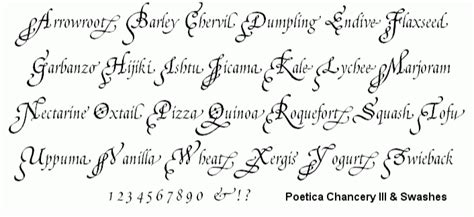
Identifying A Script Font / ELA G6: Identifying How Text Features Support Arguments ... / The best selection of script fonts for windows and macintosh.. The owner of the site is also willing to answer any flickr has a group dedicated to identifying fonts and another group that showcases fonts used in different images called fonts in use which can be. If there are multiple font styles or extraneous shapes in your image, please crop to the letters you are trying to match. You just pick a font, and update your css. It is that simple and elegant. My discovery of new custom fonts regularly comes from existing web or mobile uis.
The first lead type script font was. Arial is one of the safest web fonts, and it is available on all major operating systems. Script typefaces are based upon the varied and often fluid stroke created by handwriting, pretty much like the cursive fonts just typically more elegant. It supports all the word images in enghlish, chinese, japanese it provides font identifier apps on windows, android and ios. Please only use this tag when automatic identification services such as whatthefont.com haven't provided the answer.
The best selection of script fonts for windows and macintosh. Some scripts are more formal like elegant calligraphy, while others are casual like cursive handwriting. Best web safe fonts for html and css. Identifying fonts using matcherator tool. The windows operating system has many text stack components: Search only for the m and the z. This is a two part mini series showing you how to use whatfontis.com with success in digital scrapbooking. It is that simple and elegant.
The font matcherator will help you identify what the font is in any image.
It also detects the services used for serving the web fonts. The lowercase letters are linked and there's usually a forward slant to the letters. Stick around and try to help identify some of the other open questions. If letters are touching or connected, use image editing software to disconnect. Likefont is a free website for identify font, recognize font, preview font and font download. How to identify a font. Leave it for other folks trying to find the same font in the future. The easiest way to identify fonts on web pages. Generally, there are two styles of script writing. Feel script designed by alejandro paul is a typical font family in cursive script writing. For this tutorial, we will be using 3 different sources. Some scripts are more formal like elegant calligraphy, while others are casual like cursive handwriting. It supports all the word images in enghlish, chinese, japanese it provides font identifier apps on windows, android and ios.
Seasoned web and mobile developers know that an easy way to add some pizzazz to an app is to switch to a custom font face. This font is great when you design invitations. Font finder that helps you to identify fonts from any image. This will give you the best results. Note that support for a script may require certain changes to text stack components as well as changes to fonts.
It is that simple and elegant. Latin script (free fonts) latin script (handwritten fonts) turkish fonts at fontlibrary. This font is great when you design invitations. Luckily for me, our friends at font squirrel provide a font matcherator service that is usually up to the task of identifying a font from an image! The best selection of script fonts for windows and macintosh. Letters that are made to look like they were written by hand fall into the script or cursive categories. The information provided here pertains primarily to gdi. Note that support for a script may require certain changes to text stack components as well as changes to fonts.
The best selection of script fonts for windows and macintosh. Arizonia captures the classic script look of some of the other fonts on this list—but the bolder style keeps it from feeling overly sweet or traditional. Generally, there are two styles of script writing. It supports all the word images in enghlish, chinese, japanese it provides font identifier apps on windows, android and ios. I then want to use this script to batch change hundreds of files using the same font and size (so no need for a prompt). They are organized into highly regular formal types similar to cursive writing and looser, more casual scripts. Stick around and try to help identify some of the other open questions. These typefaces are often used for emphasis and not for large blocks of text in web design. Luckily for me, our friends at font squirrel provide a font matcherator service that is usually up to the task of identifying a font from an image! Some scripts are more formal like elegant calligraphy, while others are casual like cursive handwriting. Others feel kitschy, fun a script is based on handwritten forms. This will give you the best results. Some look elegant, reminiscent of fine handwriting created with a pointed, flexible quill.
Likefont is a free website for identify font, recognize font, preview font and font download. Seasoned web and mobile developers know that an easy way to add some pizzazz to an app is to switch to a custom font face. Leave it for other folks trying to find the same font in the future. Others feel kitschy, fun a script is based on handwritten forms. This will give you the best results.
Identifying fonts and developing a font palette for projects. My discovery of new custom fonts regularly comes from existing web or mobile uis. Search only for the m and the z. If there are multiple font styles or extraneous shapes in your image, please crop to the letters you are trying to match. Have you ever had this moment of falling in love with some absolutely random website design? The best selection of script fonts for windows and macintosh. When the font is a script font, isolate the letters that are separated. If there are multiple font styles or extraneous shapes in your image, please crop to the letters you are trying to match.
Likefont is a free website for identify font, recognize font, preview font and font download.
Others feel kitschy, fun a script is based on handwritten forms. With this extension, you could inspect web fonts by just hovering on them. Arizonia captures the classic script look of some of the other fonts on this list—but the bolder style keeps it from feeling overly sweet or traditional. Seasoned web and mobile developers know that an easy way to add some pizzazz to an app is to switch to a custom font face. Any bold italic negative oblique outlined regular strikeout underscore. Identifying fonts and developing a font palette for projects. The best selection of script fonts for windows and macintosh. Stick around and try to help identify some of the other open questions. Please only use this tag when automatic identification services such as whatthefont.com haven't provided the answer. Latin script (free fonts) latin script (handwritten fonts) turkish fonts at fontlibrary. Instant font identification powered by the world's largest collection of fonts. You just pick a font, and update your css. When the font is a script font, isolate the letters that are separated.